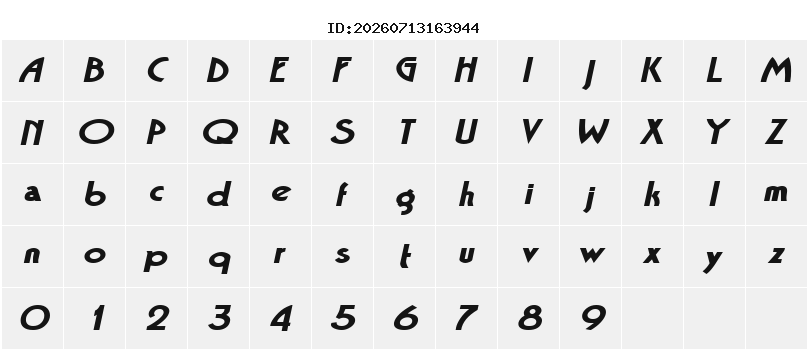
BandstandExtended Preview
• Font Name: BandstandExtended
• Font Style: Oblique
• Full Font Name: BandstandExtended Oblique
About BandstandExtended.ttf
BandstandExtended.ttf is a modern, elegant sans-serif font designed for ultimate readability and visual harmony. Perfect for branding, headlines, web design, and print materials.